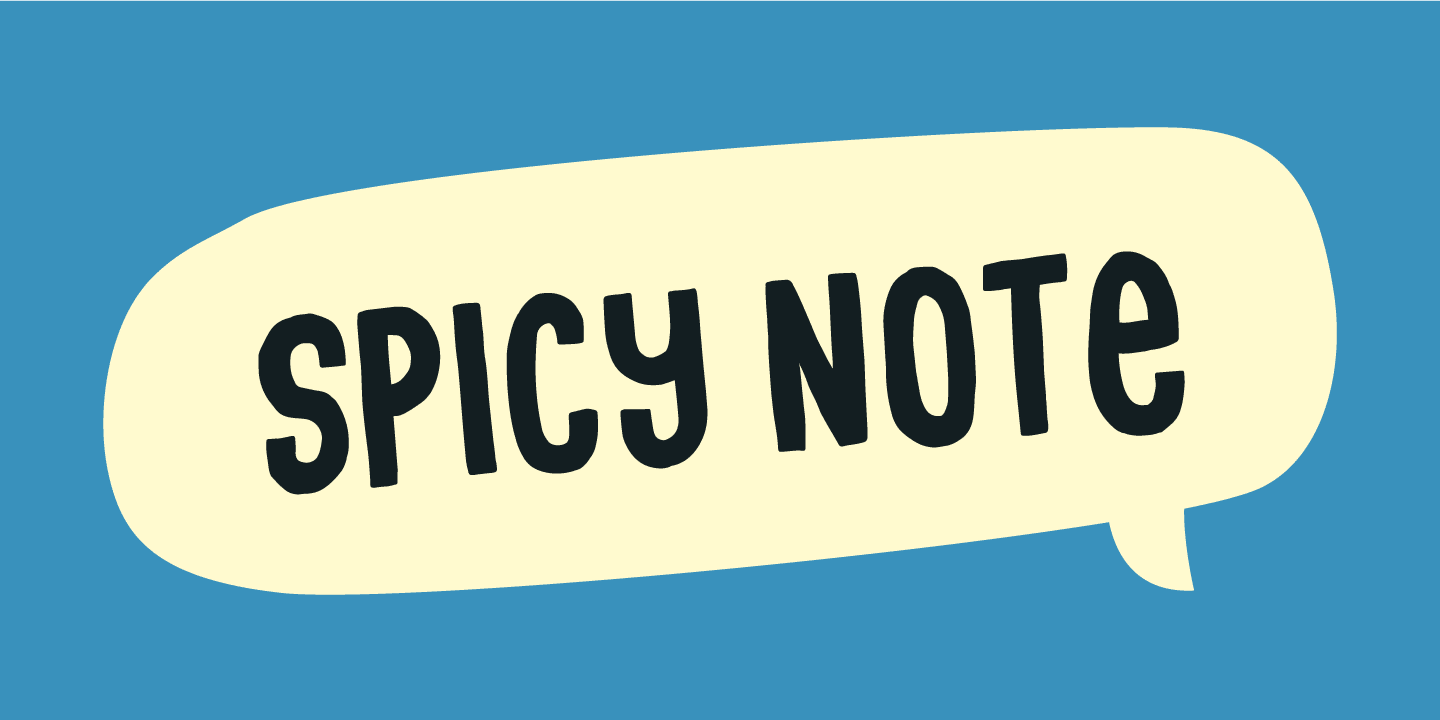
Designed by Jakob Fischer, Spicy Note is a hand display and hand drawn font family. This typeface has two styles and was published by Pizzadude.dk.
Here’s my eye-catching alternative unicase font - build with a twist of grafitti and dash of pizzadude!
Each letter has 5 slightly different versions and they automatically cycles as you type. A great way to make your text look naturally organic and dynamic!